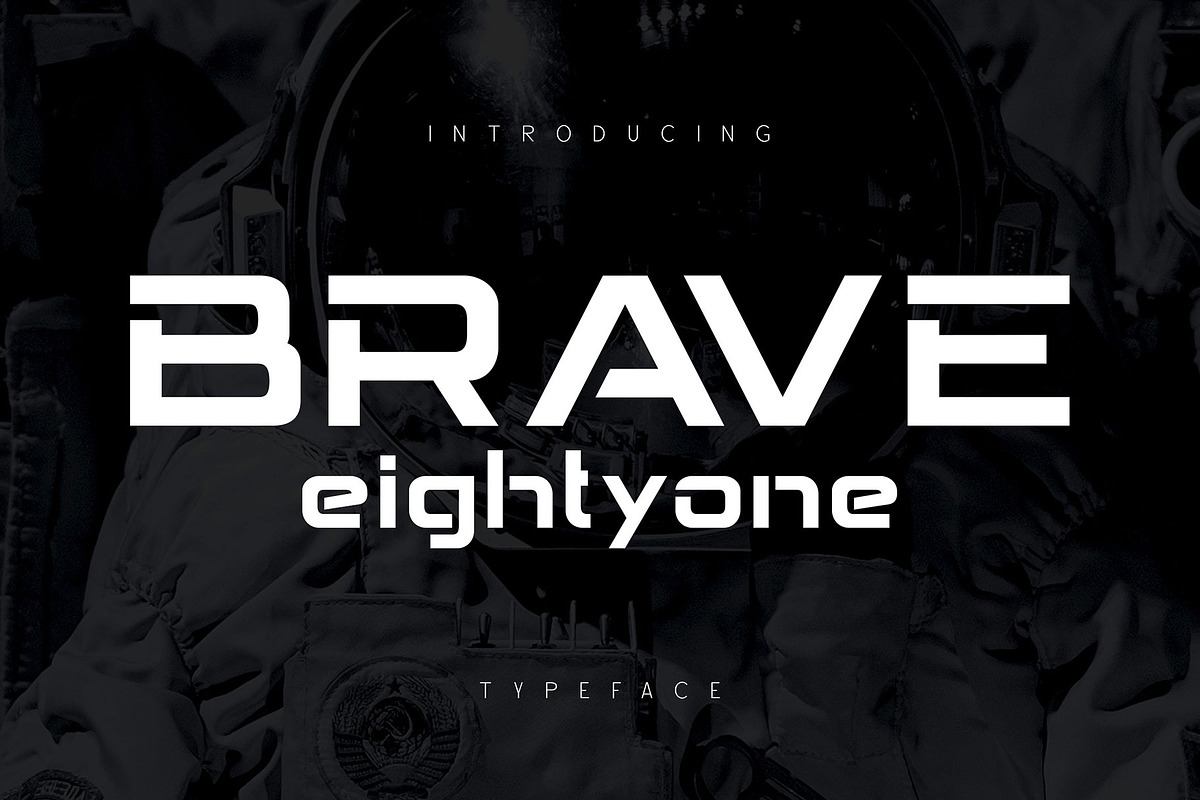
BRAVE Eighty One Font Free Download is a bold and modern typeface designed to make a strong statement in any design project. With its sharp edges, clean lines, and commanding presence, BRAVE Eighty One is perfect for logos, posters, product branding, social media graphics, and editorial design that need to stand out.
This font offers a contemporary look with a bit of vintage flair, making it ideal for both modern and retro-inspired designs. Whether you’re crafting a logo for a bold brand, designing eye-catching promotional material, or creating an impactful web interface, BRAVE Eighty One brings strength and style to your typography.